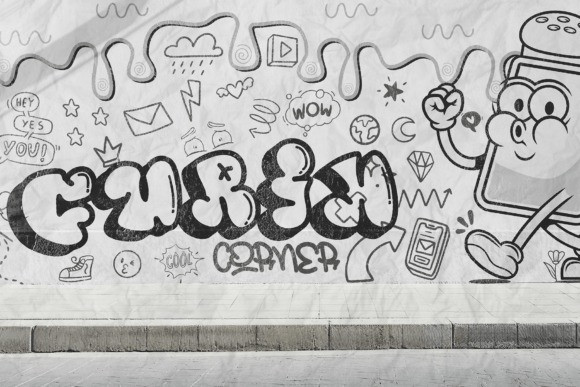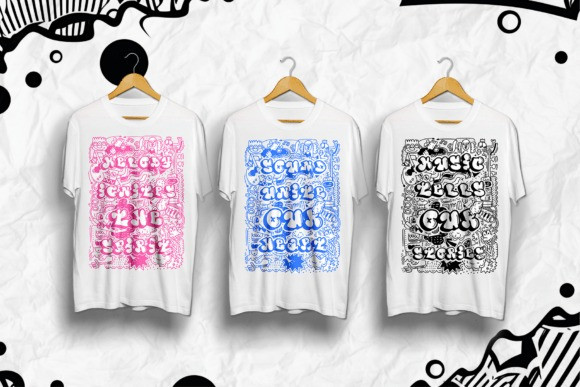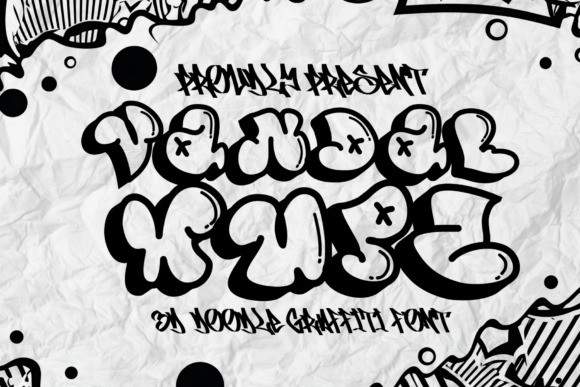
Vandal Wupz Font
Vandal Wupz Font – a whimsical doodle bubble graffiti font with a vibrant, attention-grabbing personality. Each character stands out, meticulously fashioned with a prominent outline and striking shadow, creating a unique, bold style. Complimented by the hollowed internals of each character, this font boasts an irresistible 3D effect, a visual feast that leaps from the page, making an unforgettable impact. “Vandal Wupz” is the ultimate choice for vivid street art expressions, urban-chic designs, impactful posters, or any project that craves a bold, playful and standout graffiti twist. Using “Vandal Wupz”, you can infuse your typography with a dynamic, distinctive edge, perfectly embodying the spirit of urban culture and artistic creativity.